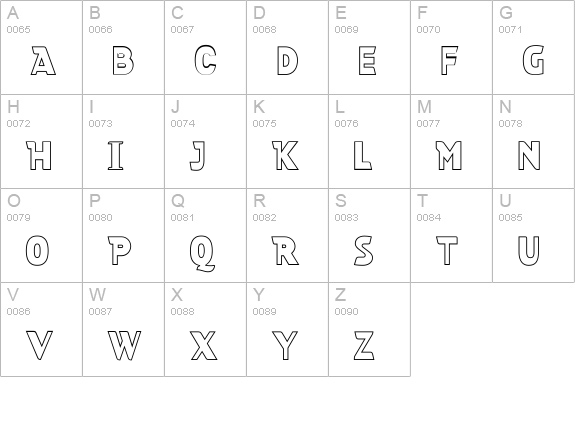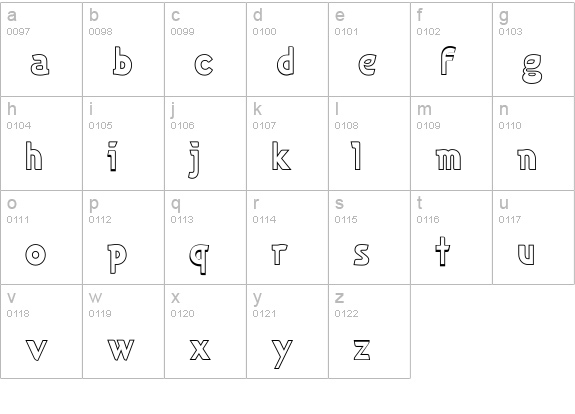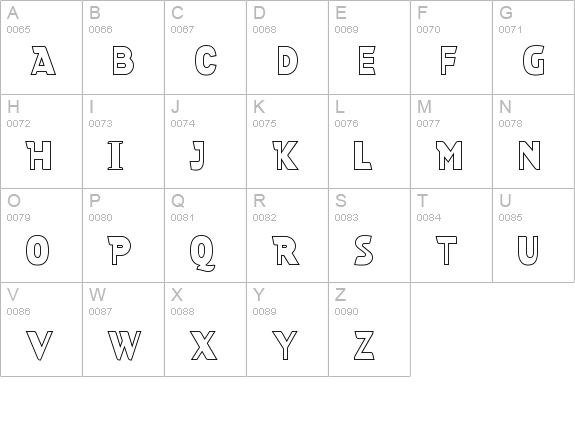
Introducing Cuban-Outline font, a sleek and modern typeface that exudes sophistication and creativity. With its clean lines and bold edges, this font is perfect for making a statement in your designs. The Cuban-Outline font is versatile and can be used for a variety of projects, from branding to marketing materials. Best of all, the Cuban-Outline font is free to download at FontsMarket.com. Whether you're a designer looking to add a unique touch to your projects or a business owner wanting to elevate your brand, this font is sure to make a lasting impression. Don't miss out on the opportunity to enhance your designs with the Cuban-Outline font today!